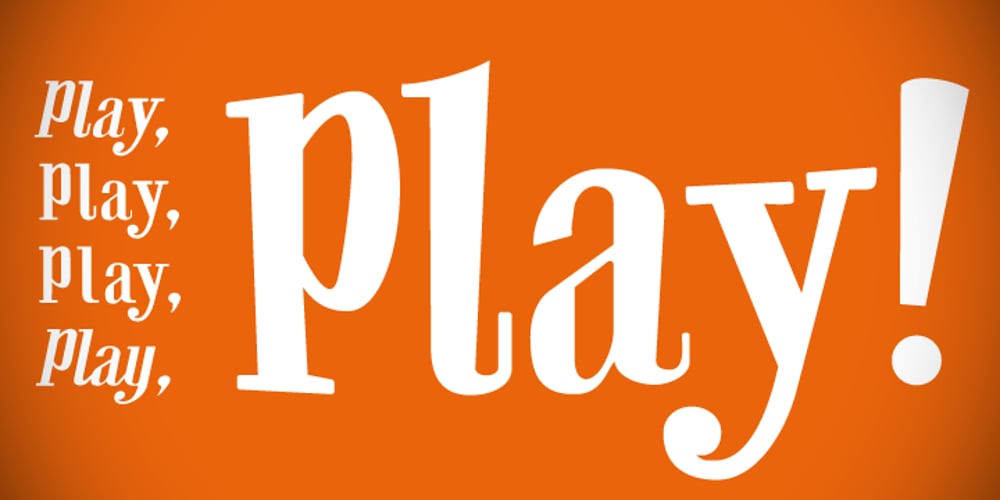
CA Play Font Family was designed by Stefan Claudius and published by Cape Arcona Type Foundry. CA Play contains 5 styles and family package options. This font invites you to play with it. The Real version has longer tails, while the Roman version cuts them up to make the font more suitable for text. The Script version connects the letters, while the Dynamic version is just an italic style.